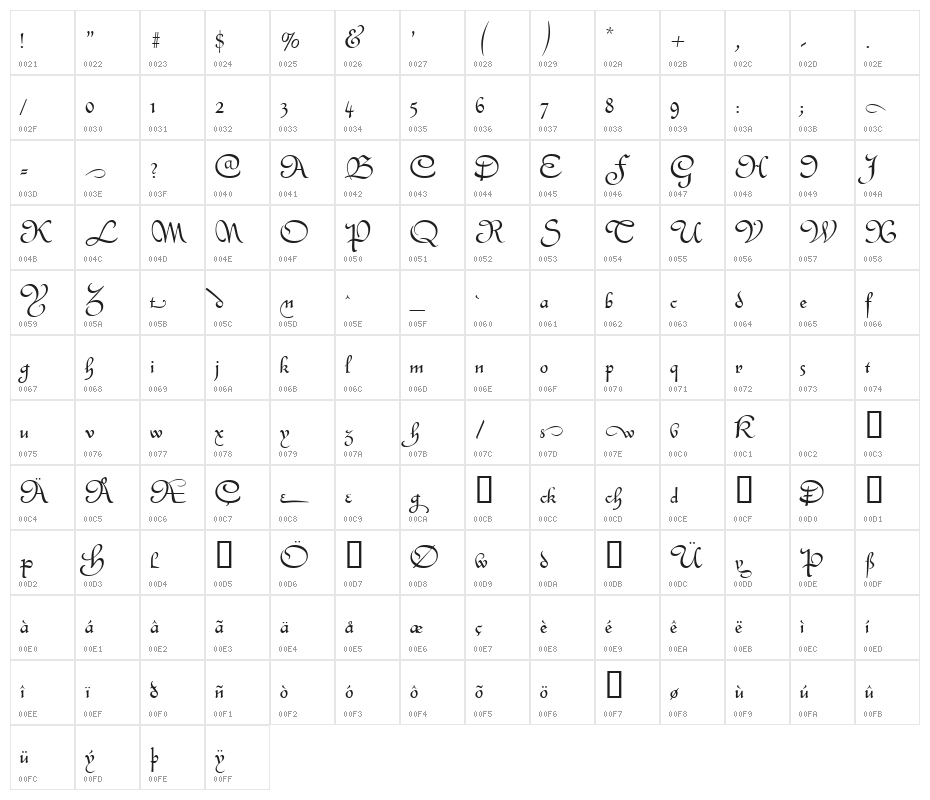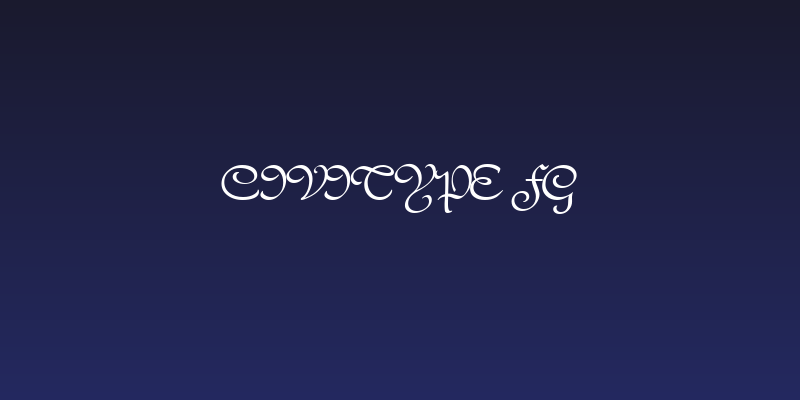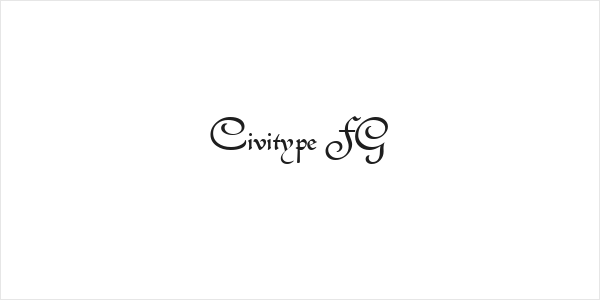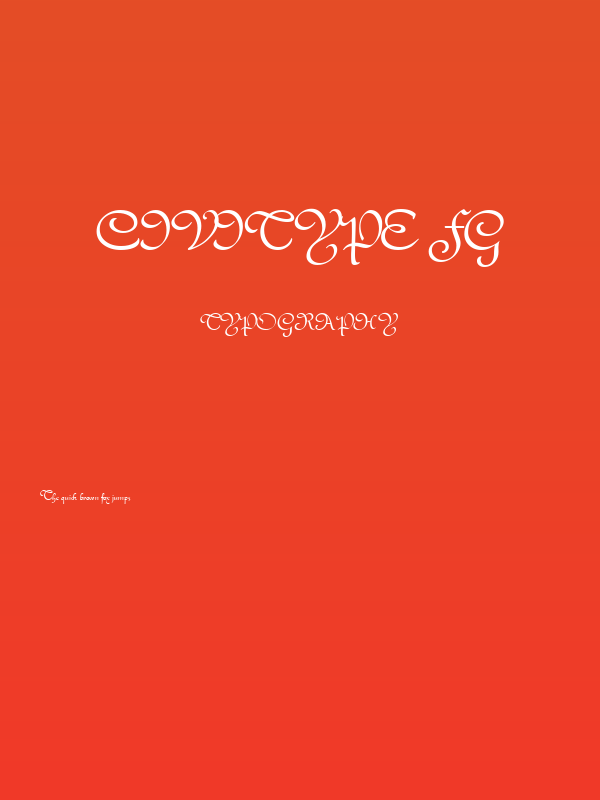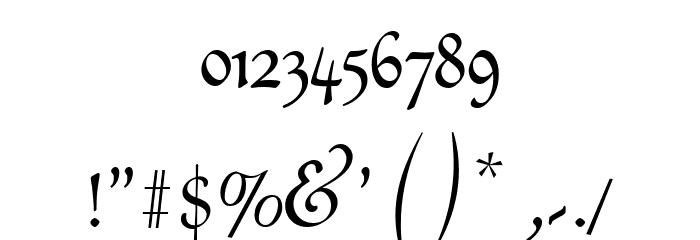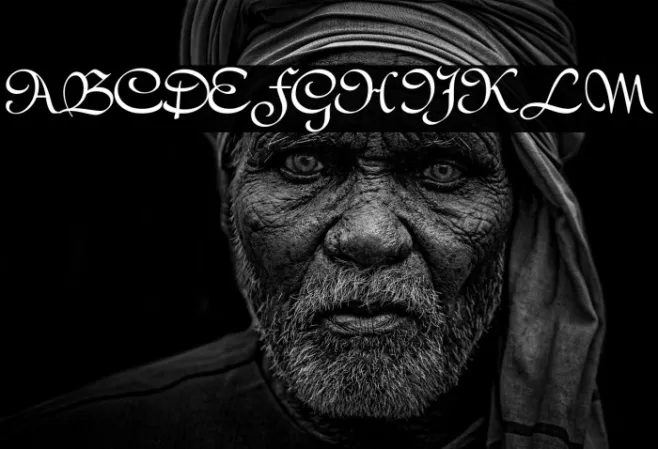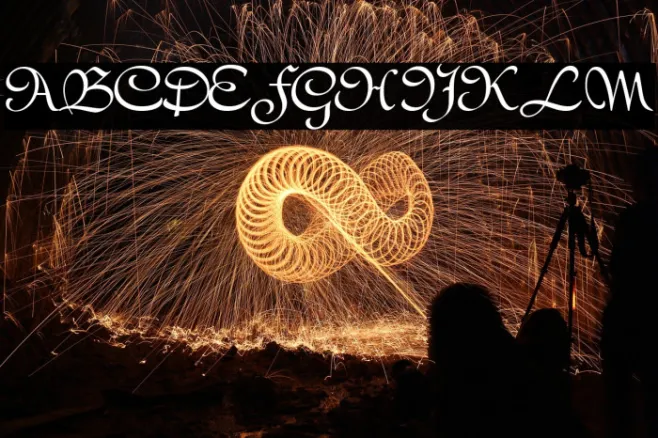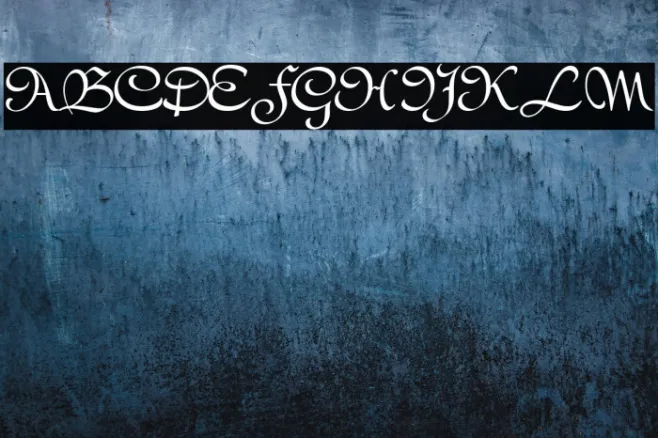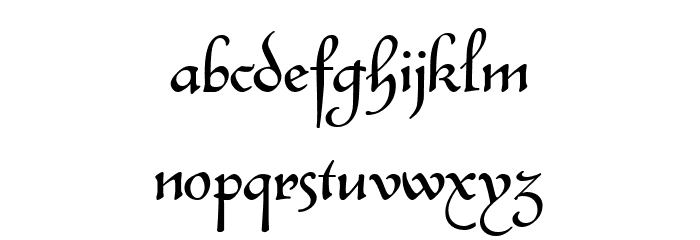
Civitype FG Font
Civitype FG Description
This font features an elegant and flowing script style, characterized by its ornate and decorative letterforms. The uppercase letters exhibit a high degree of flourish, with sweeping curves and intricate loops that give a sense of sophistication and grace. The lowercase letters maintain a consistent style, with smooth connections and a slightly more restrained design compared to the uppercase. The numerals are uniquely styled, maintaining the overall decorative theme while ensuring readability. Special characters are crafted with the same attention to detail, making them seamlessly integrate with the rest of the font. This font is ideal for projects that require a touch of elegance and formality.
| Use Case | Logos, Invitations, Headlines |
| Proposed Projects | Wedding invitations, luxury branding, formal event programs, and elegant packaging design. |